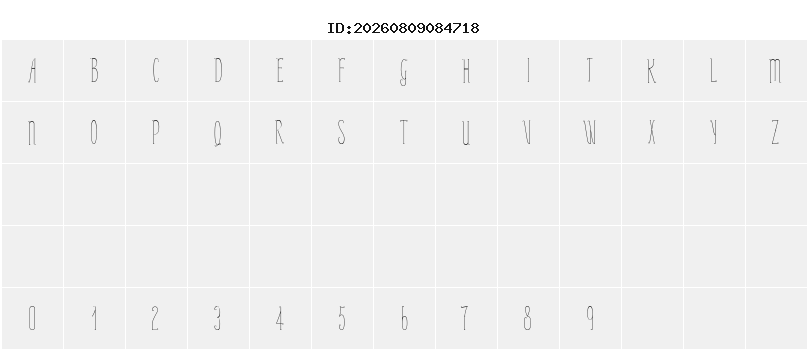
• Font Name: Perle De Rosee
• Designer: BB Co.
About Perle De Rosee.ttf
Perle De Rosee.ttf is a modern, elegant sans-serif font designed for ultimate readability and visual harmony. Perfect for branding, headlines, web design, and print materials.